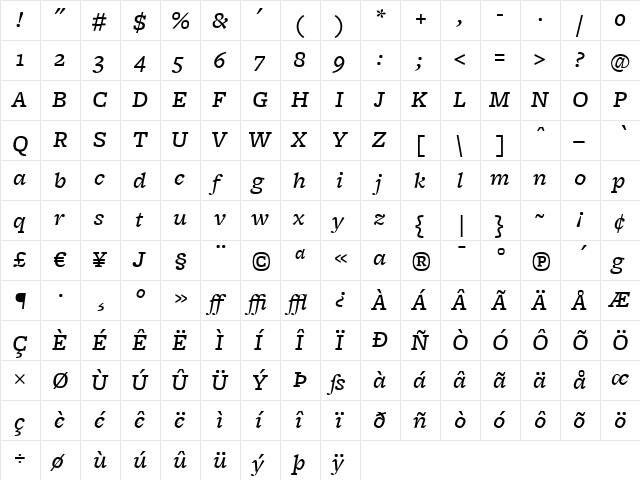
FreightMicro MediumItalic Font Preview
FreightMicro MediumItalic
FreightMicro MediumItalic Font Details
| Style | MediumItalic |
| Foundry | Joshua Darden & Phil's Fonts, Inc |
| Designer | Joshua Darden |
Design Context for FreightMicro Typeface
FreightMicro offers clean, dependable letterforms without strong stylistic allegiance, making it a practical choice for designers who need flexibility. The slanted form adds forward momentum and visual energy.
Pro Tip: Use FreightMicro for emphasis, pull quotes, and subheadings where its slanted energy can add rhythm to the layout.